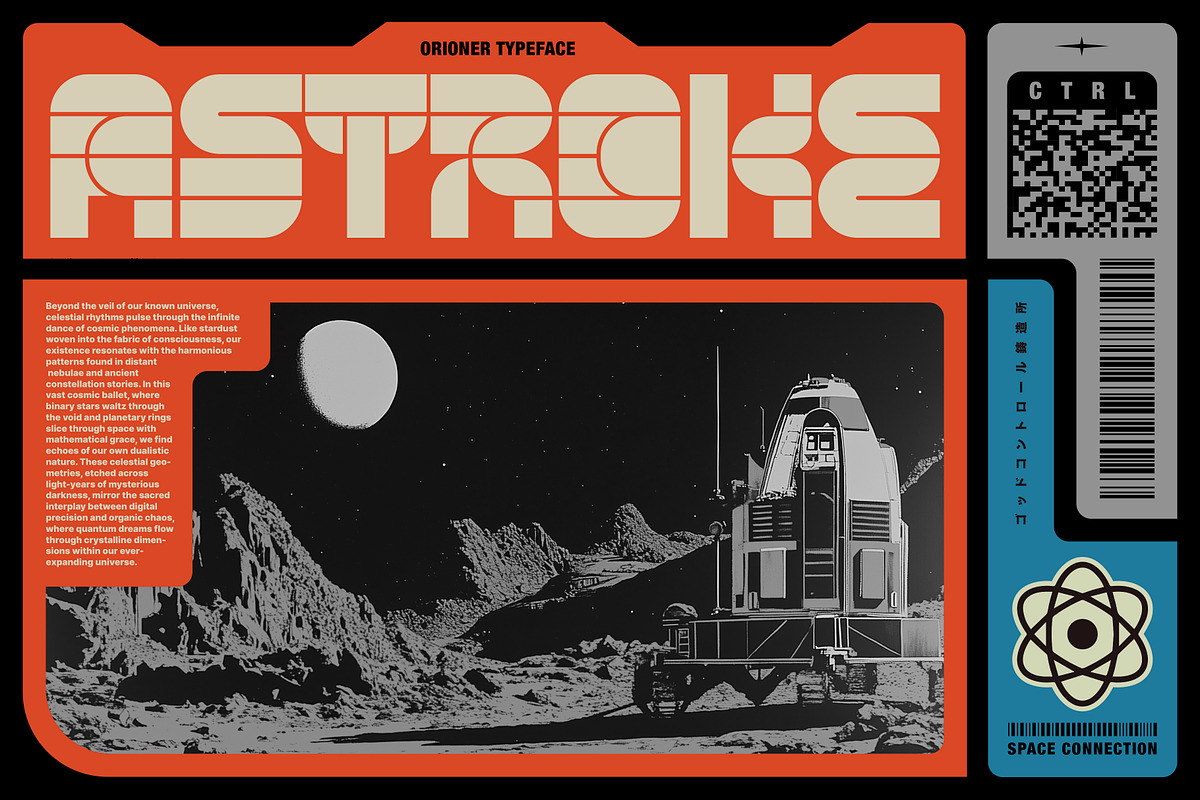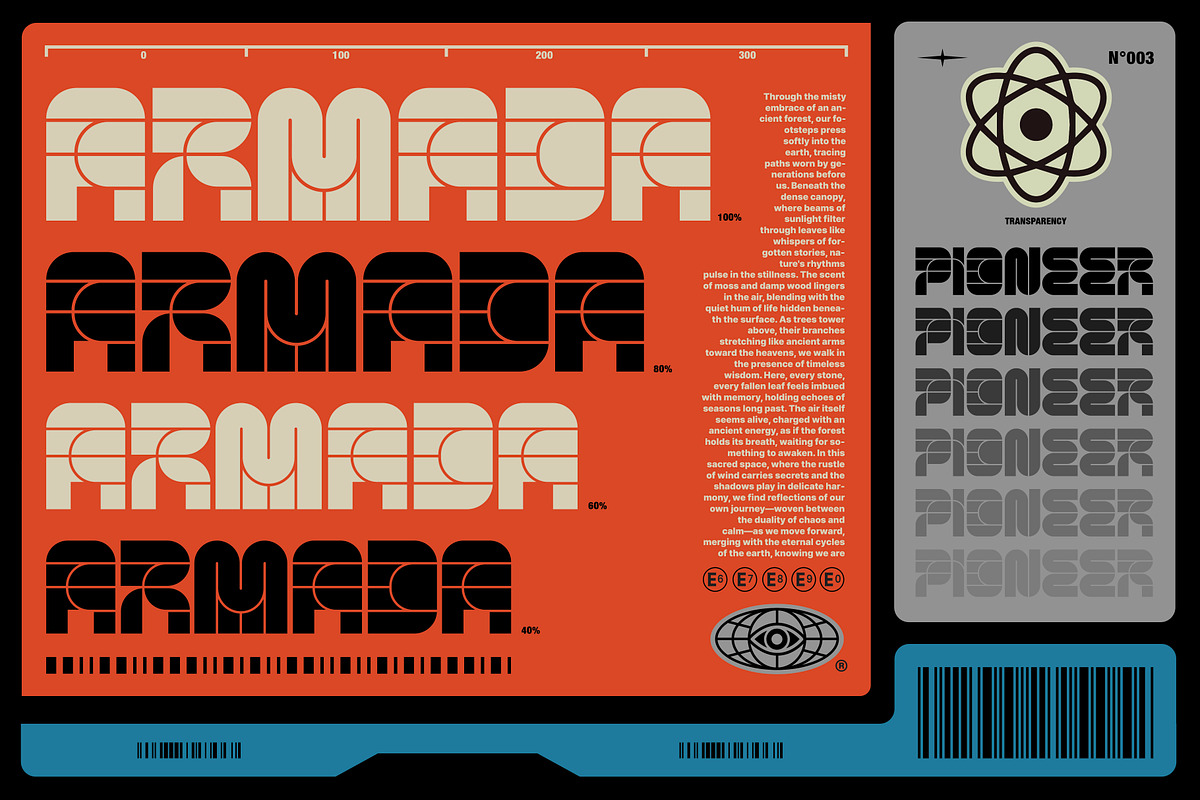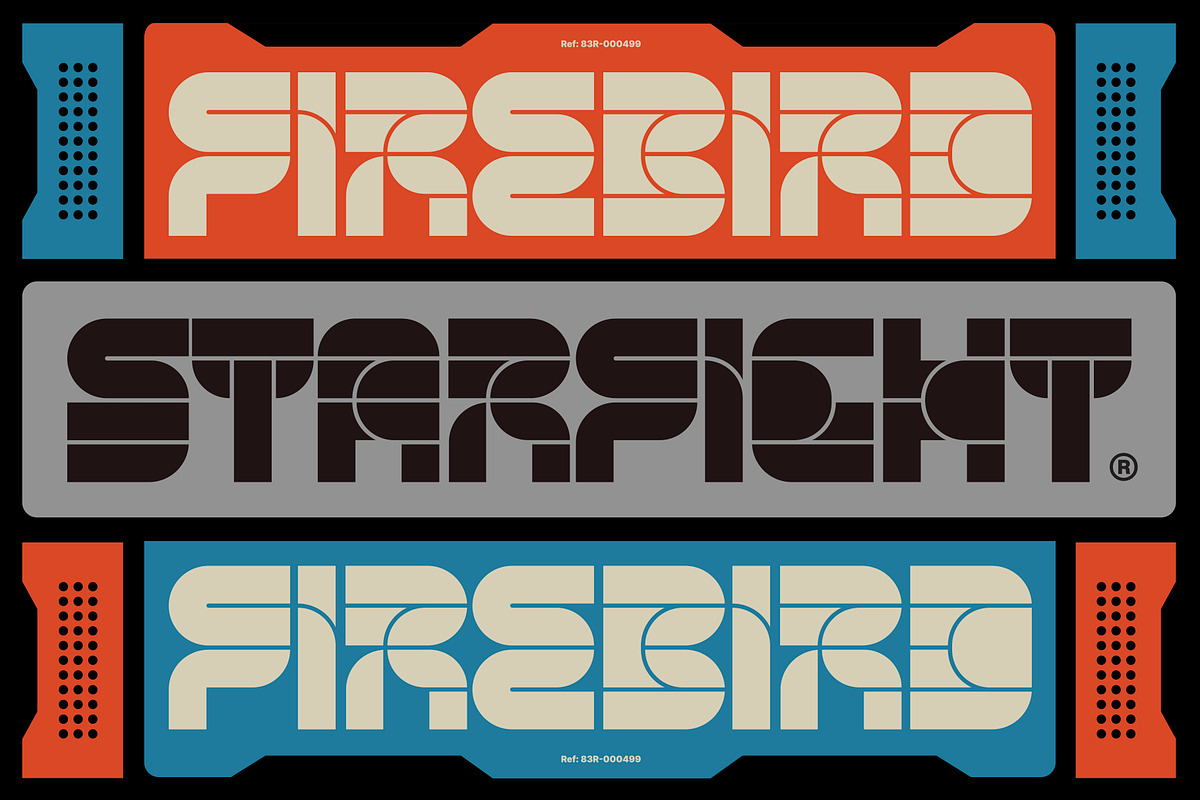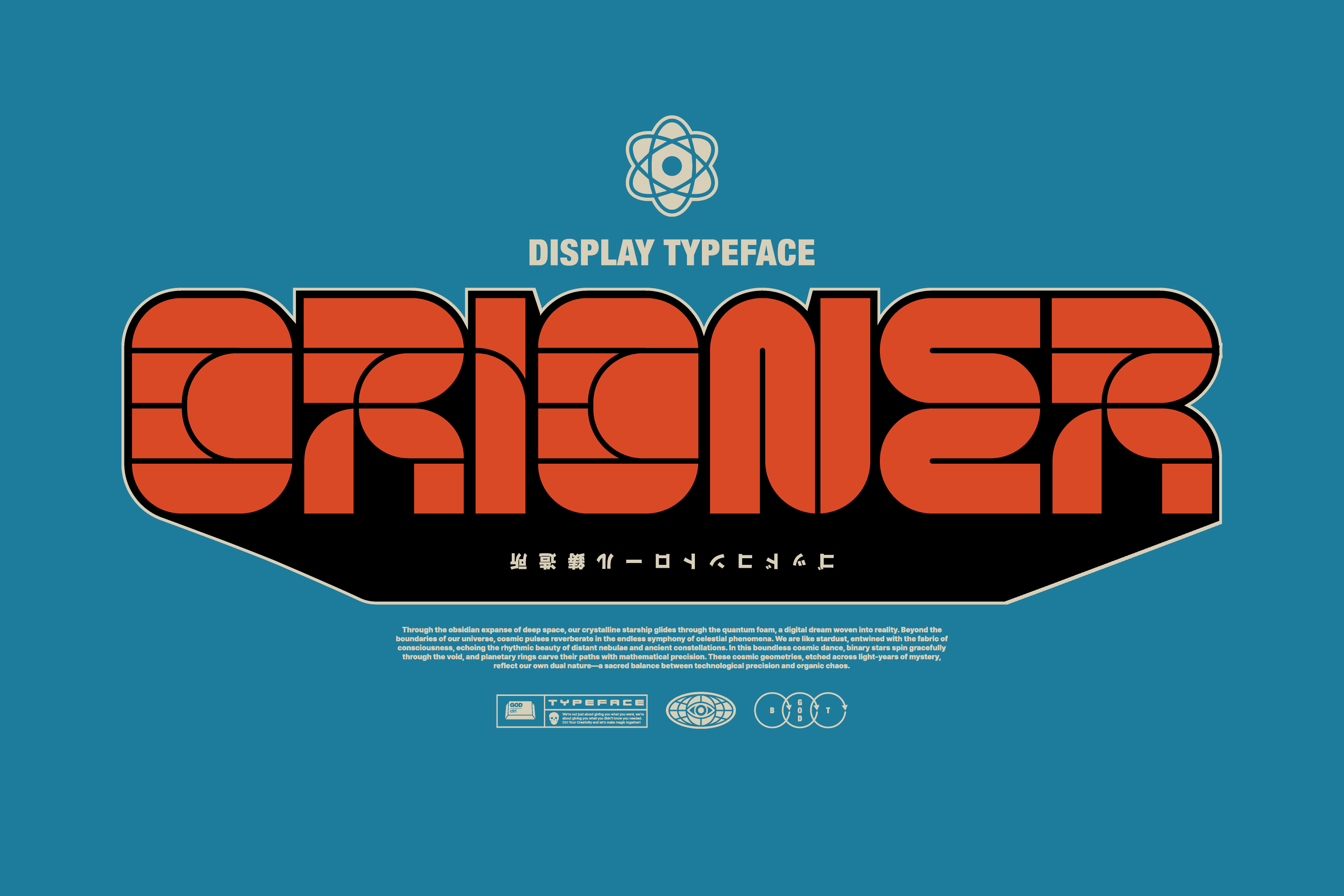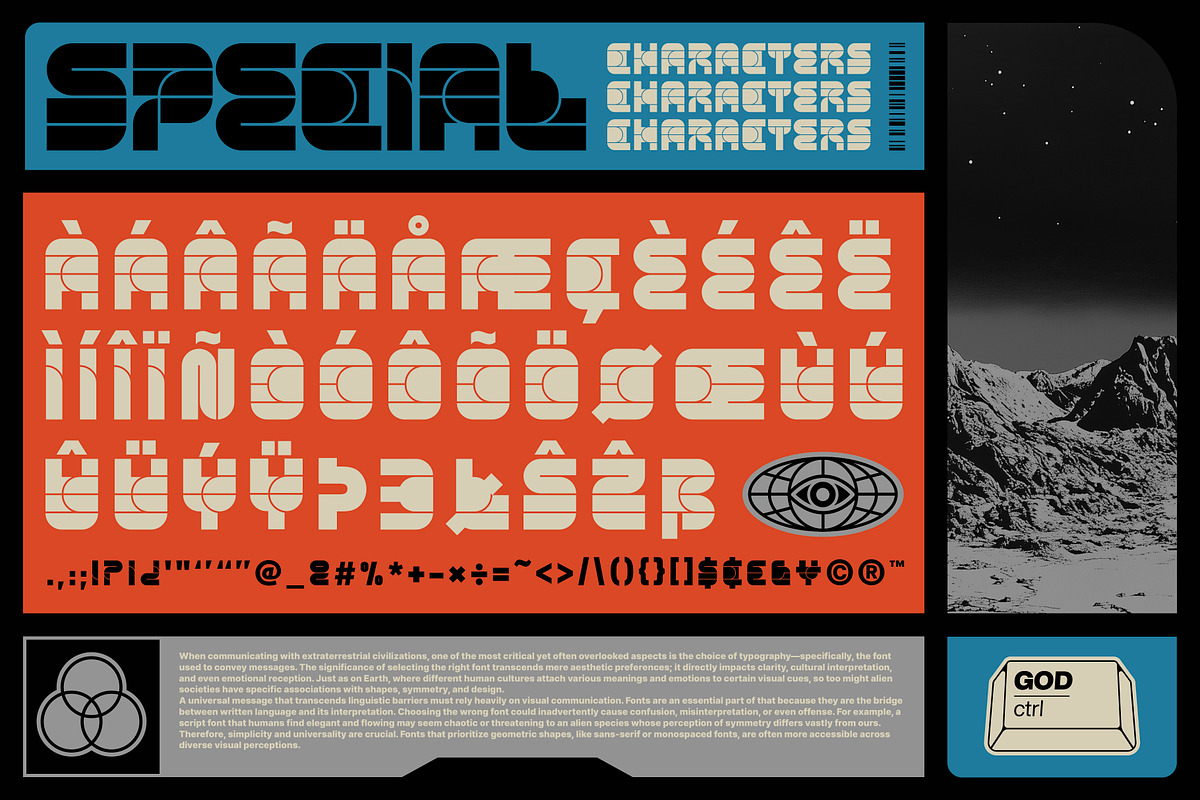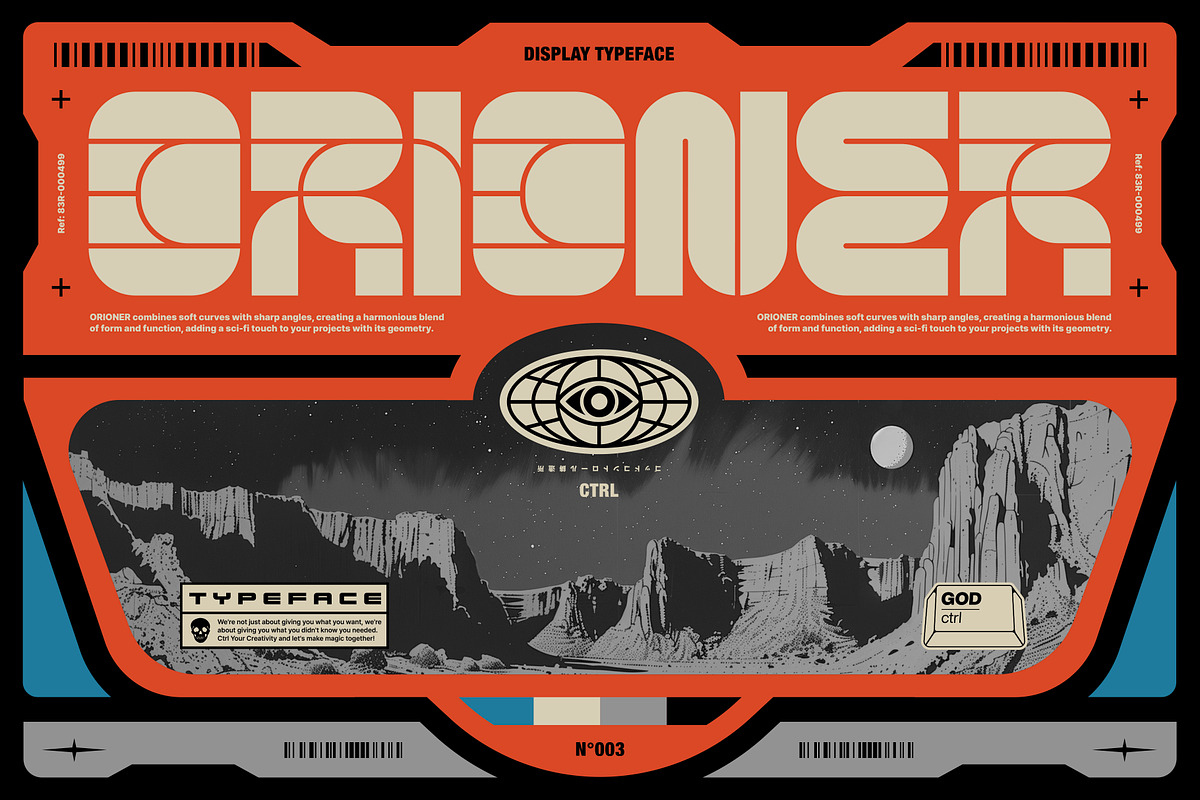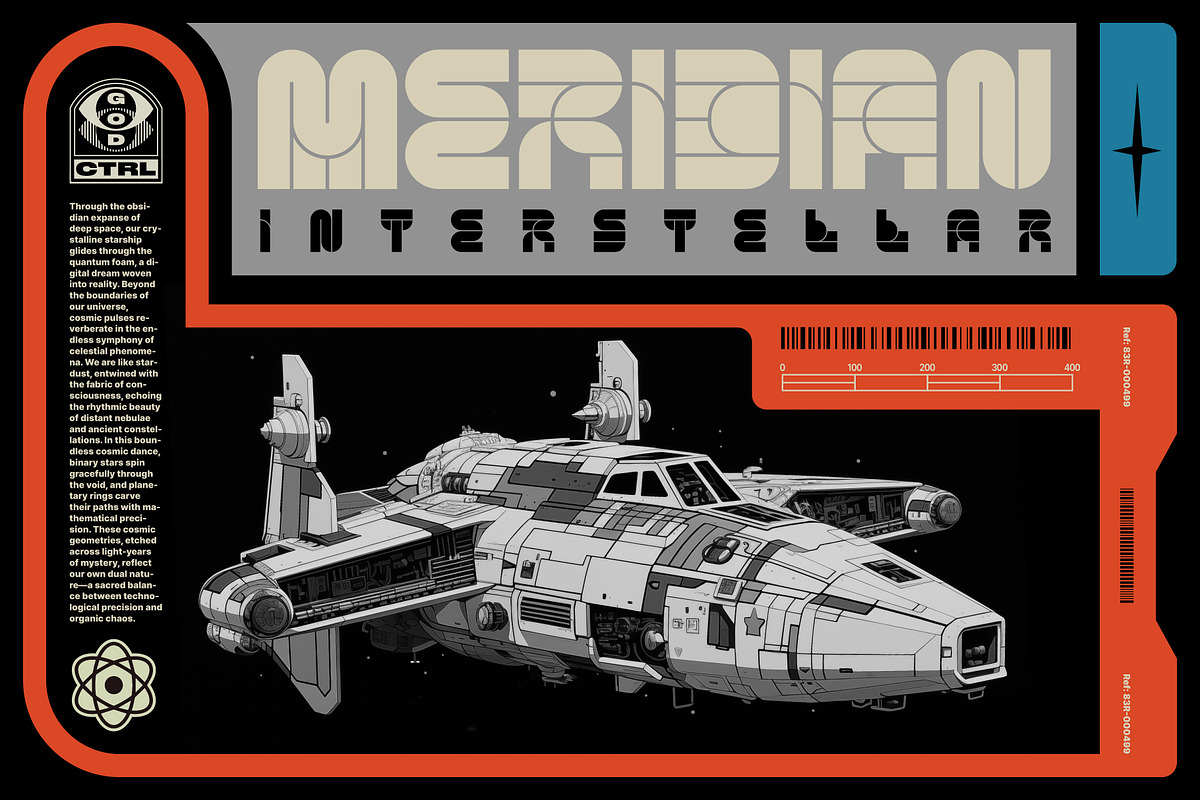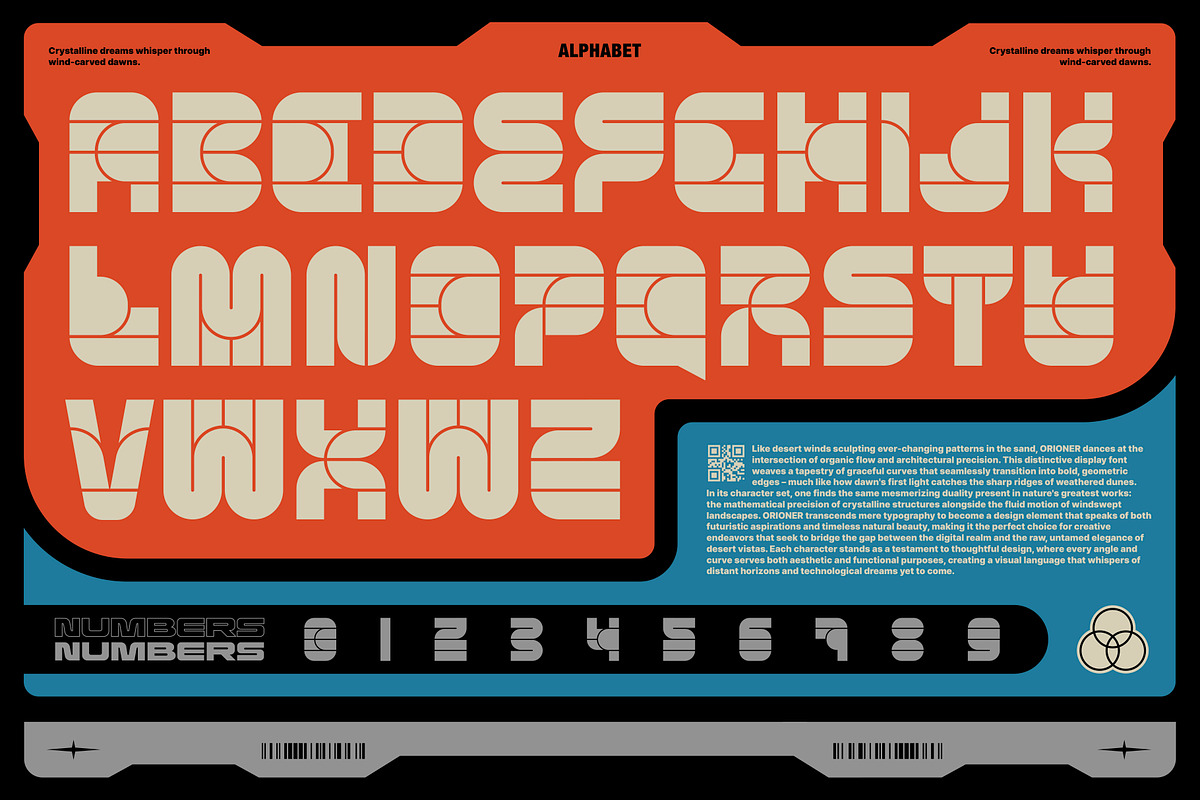
Orioner Display Typeface
Introducing "Orioner Display Font" – your next choice for bold, futuristic, and downright kick-@ss stuff.
Forget those boring fonts, Orioner is all about bold statements and futuristic vibes. Combining smooth curves with razor-sharp angles, creates something truly unique that’s perfect for posters, titles, and any design that screams for attention.
With 190 unique characters, Orioner brings that sci-fi flair with a side of brutalist grit – Ctrl your creativity, embrace the chaos, and watch your designs take flight with Orioner!
- One futuristic and bold display font
- Special characters and punctuation included
- 190 total characters